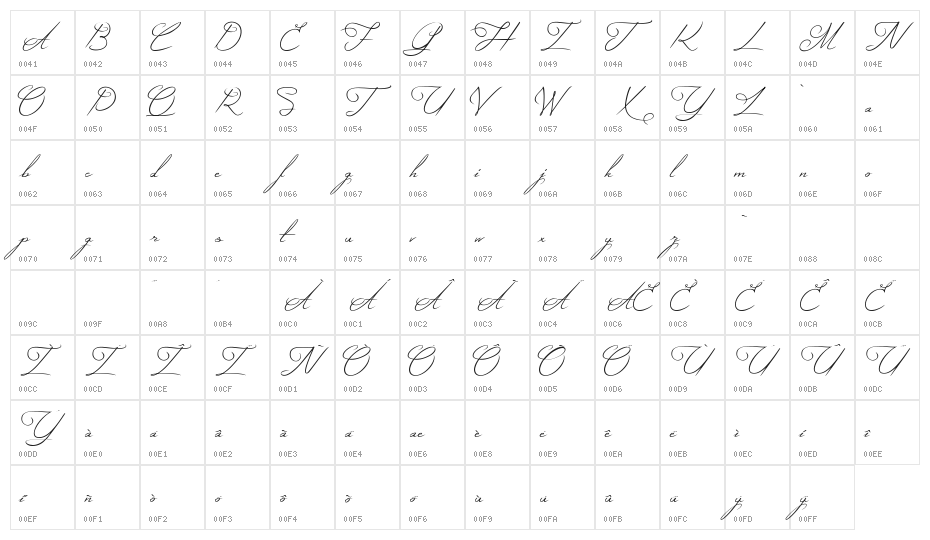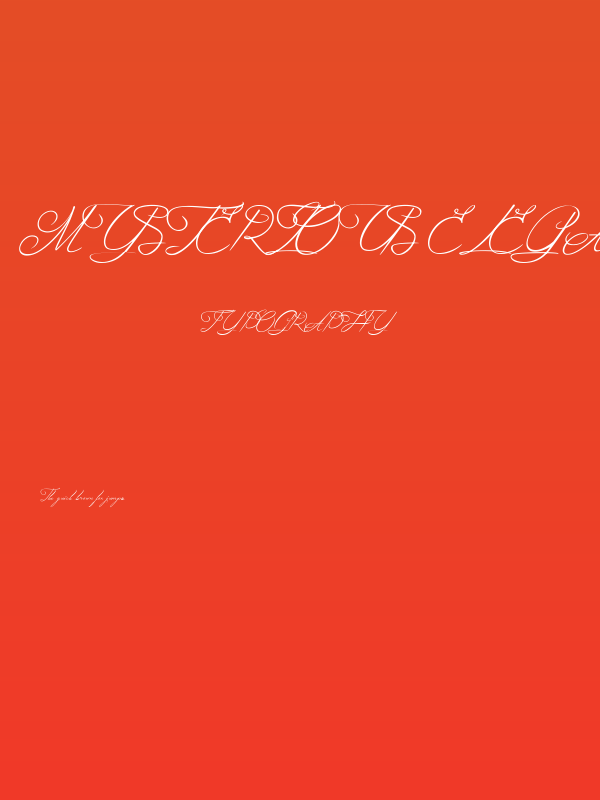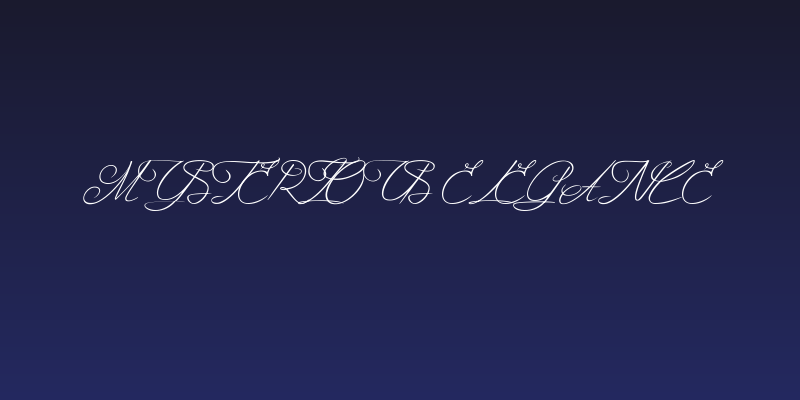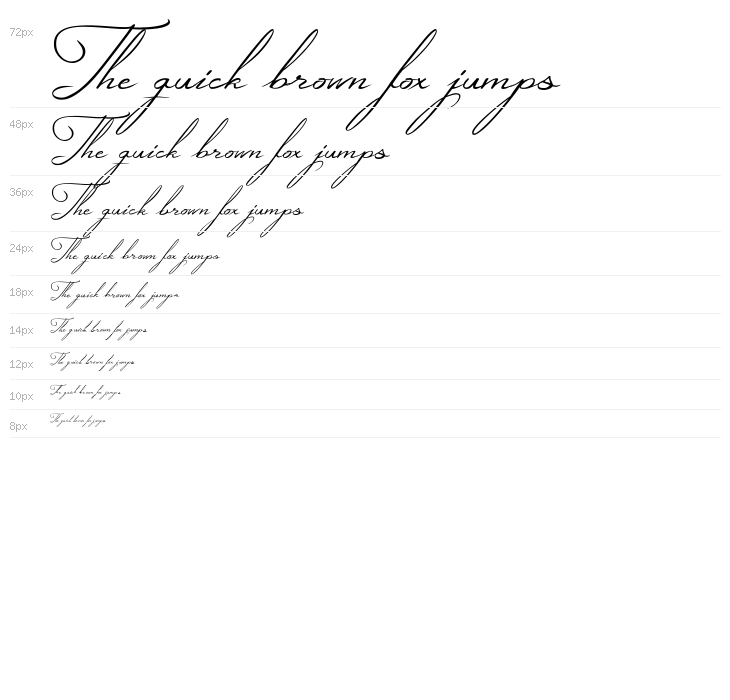
Mysterious Elegance Font
Mysterious Elegance Description
This font exudes a sense of elegance and mystery with its intricate, flowing script style. The characters are designed with elaborate loops and swirls, giving it a sophisticated and artistic appearance. The uppercase letters are particularly ornate, featuring extended flourishes that add a touch of grandeur. The lowercase letters maintain a consistent style, with a slightly more restrained design that complements the uppercase. The overall look is reminiscent of classic calligraphy, making it suitable for formal and decorative purposes. The font's delicate lines and high contrast between thick and thin strokes enhance its refined aesthetic.
| Overall Style | Elegant, Decorative |
| Proposed Projects | Ideal for wedding invitations, luxury branding, elegant stationery, and artistic projects requiring a touch of sophistication. |